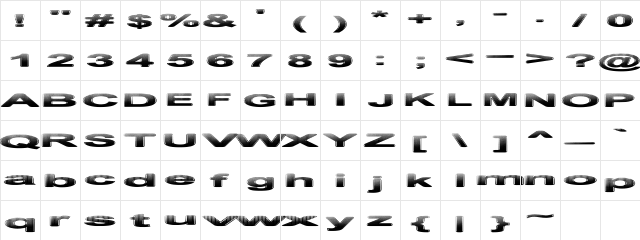
Philtered Phont Regular
Design Context for Philtered Phont Typeface
Philtered Phont offers clean, dependable letterforms without strong stylistic allegiance, making it a practical choice for designers who need flexibility.